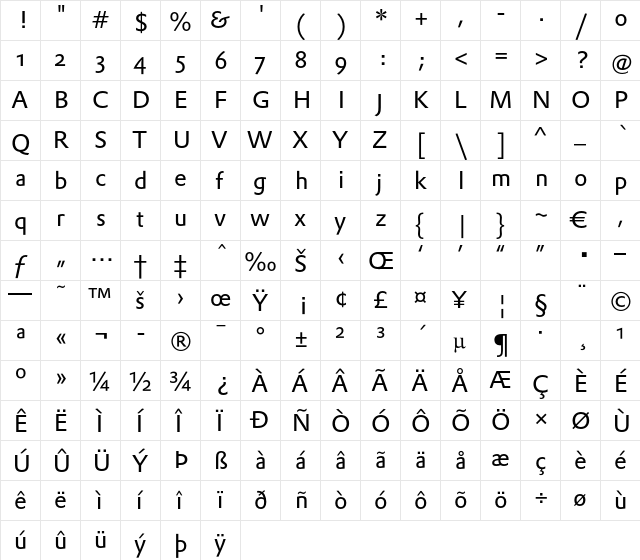
DTLProkyonST Regular
Design Context for DTLProkyonST Typeface
DTLProkyonST offers clean, dependable letterforms without strong stylistic allegiance, making it a practical choice for designers who need flexibility.
Pro Tip: Use DTLProkyonST in both headline and body roles to test its range before committing to a single application.